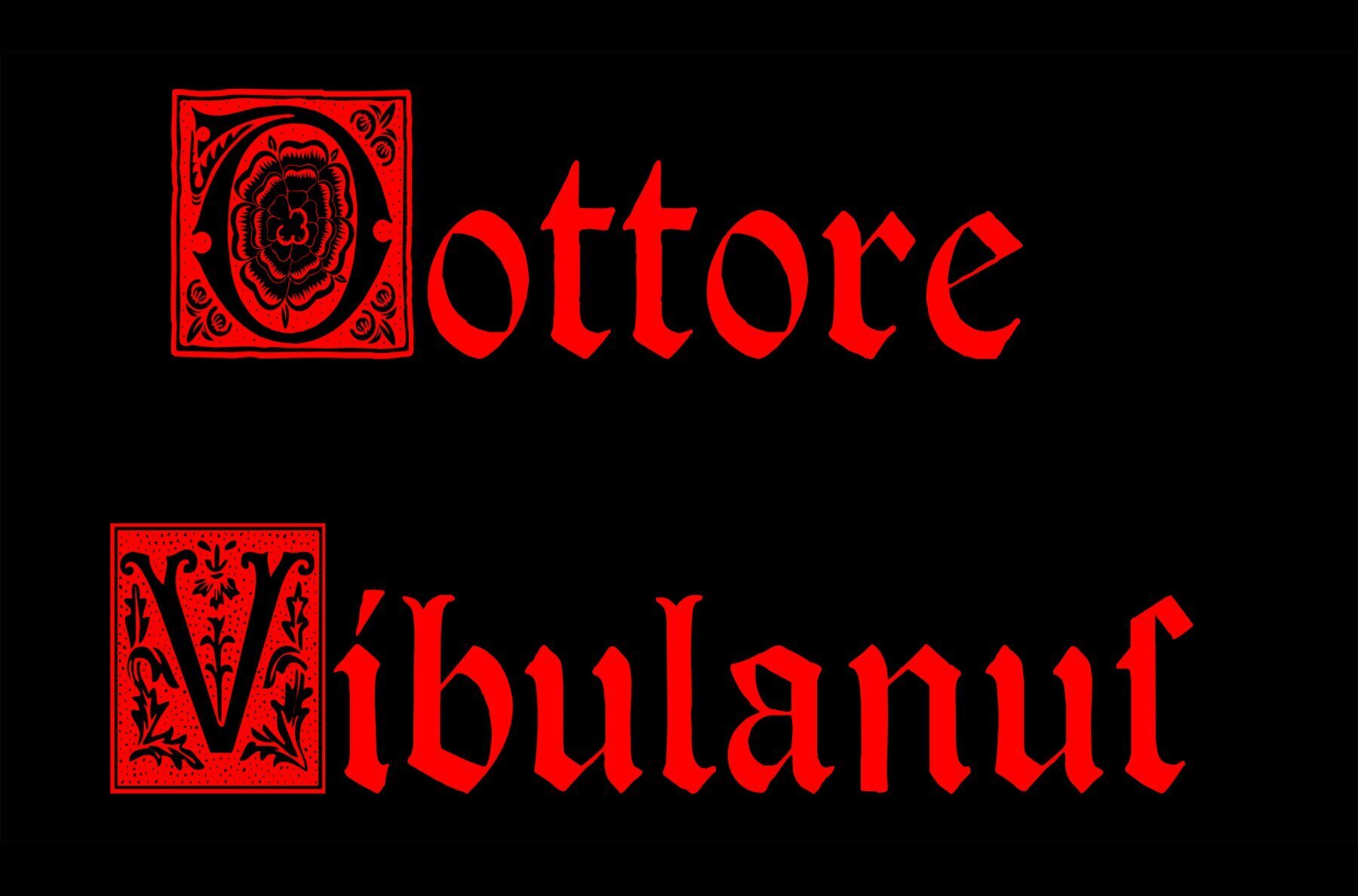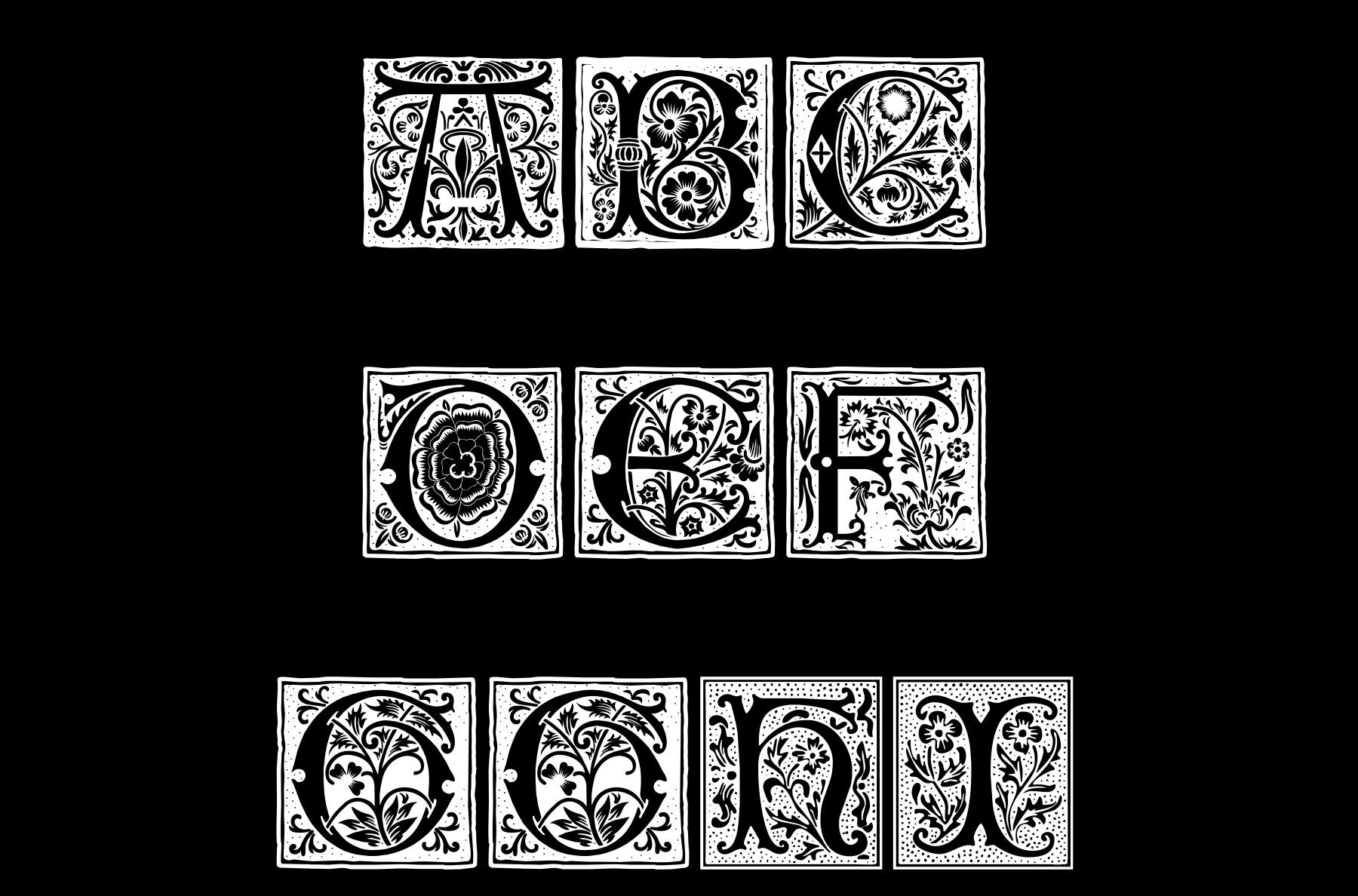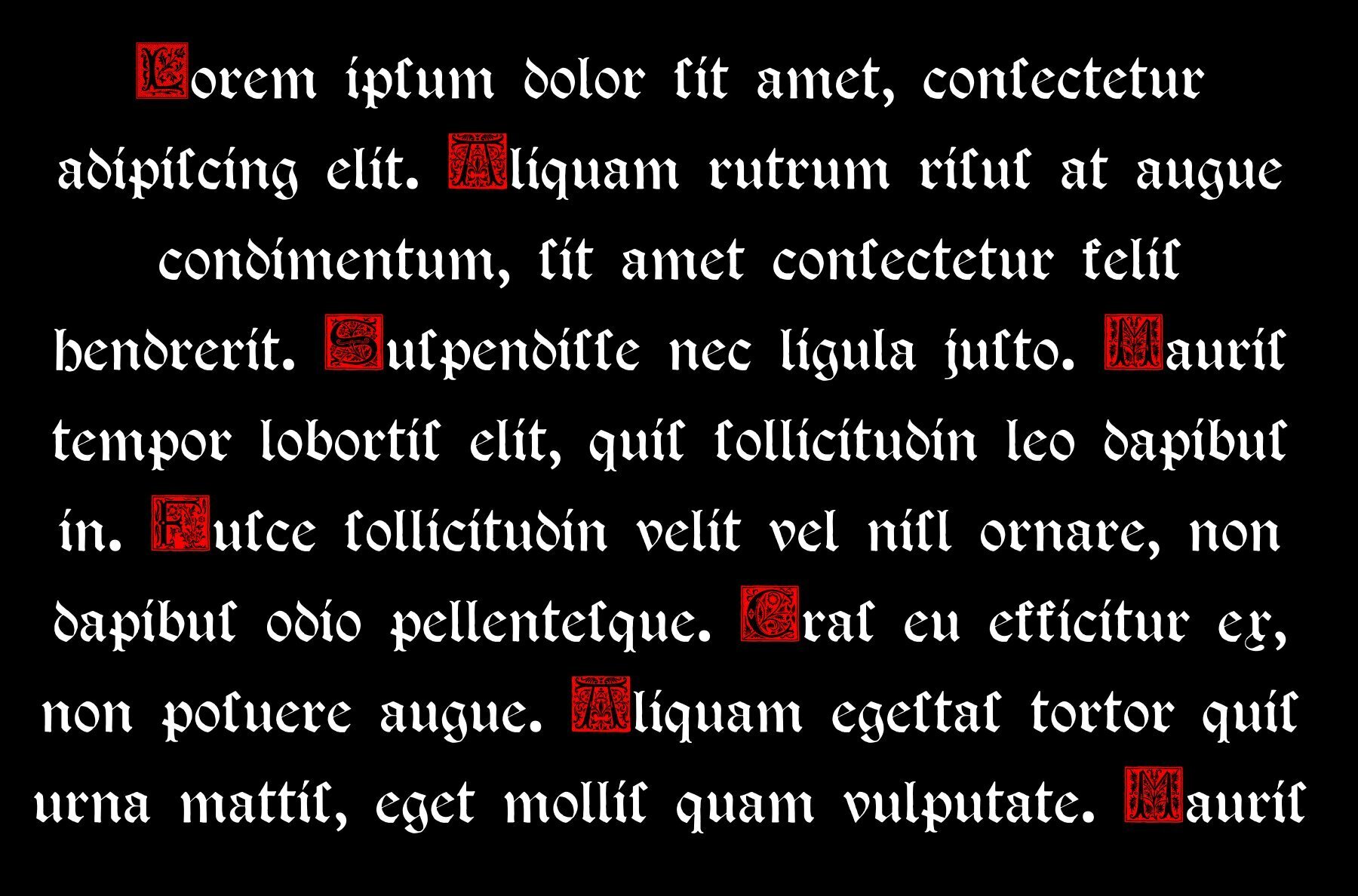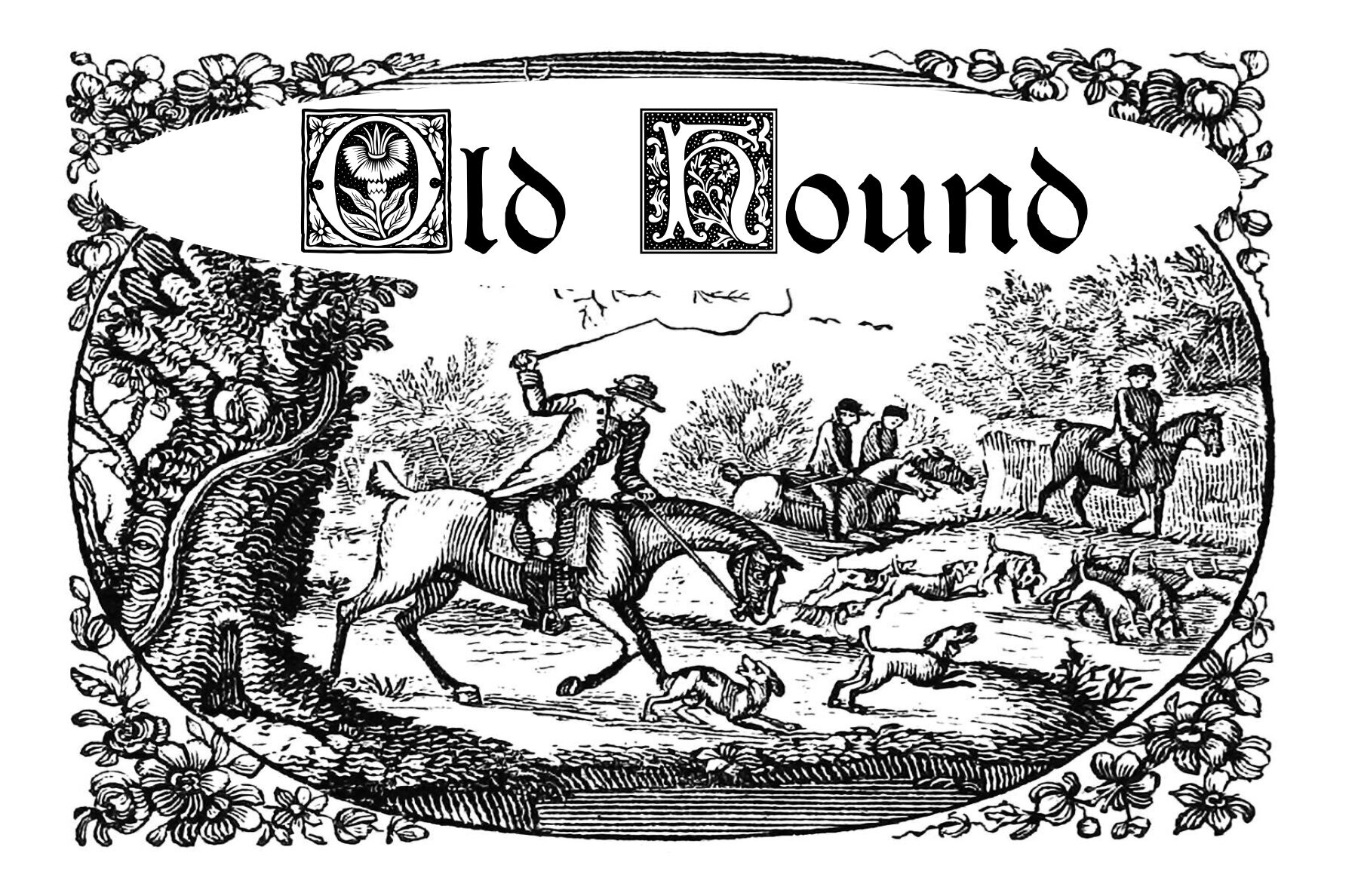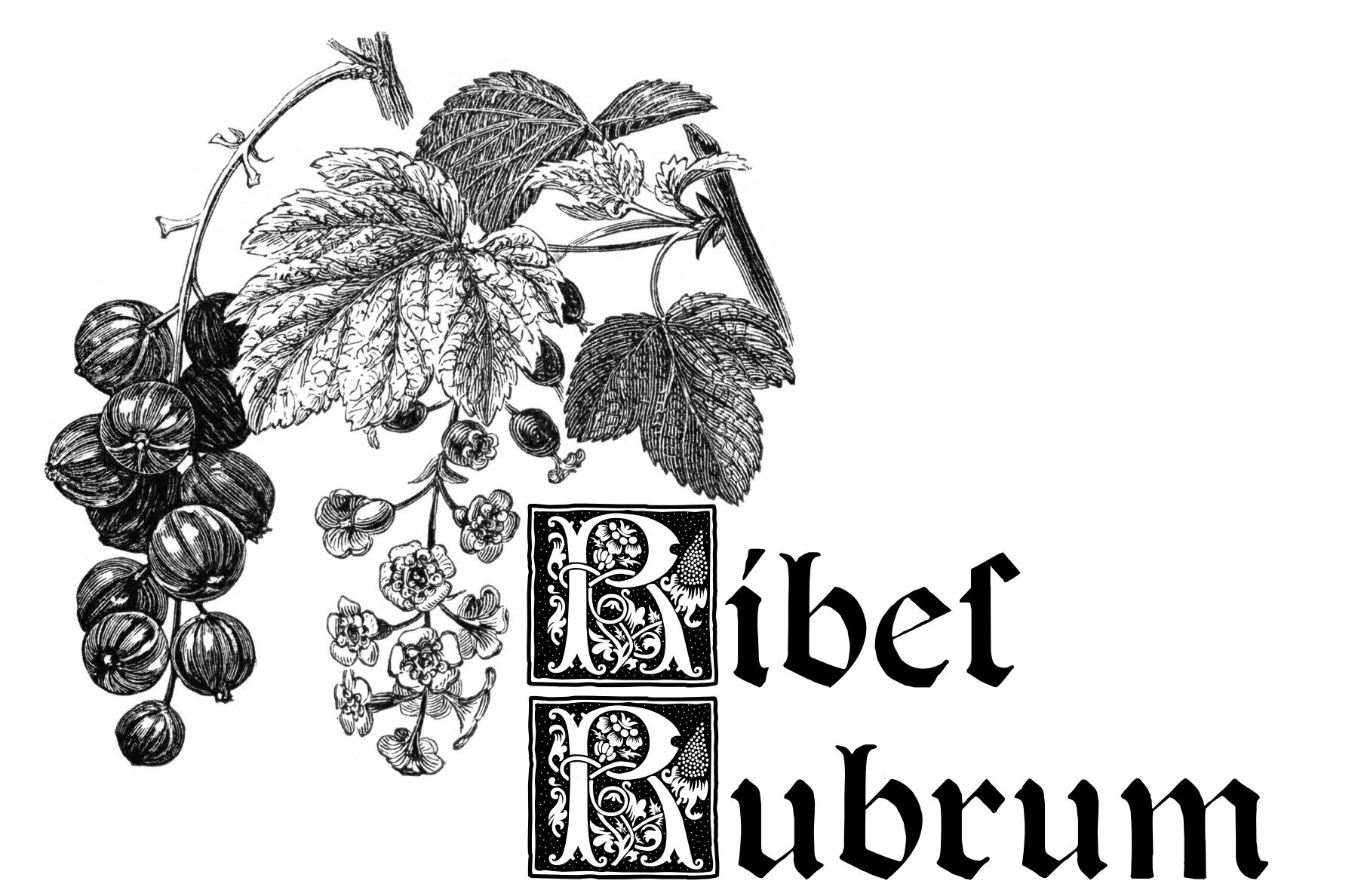
Dottore Vibulanus Font
Dottore Vibulanus Regular
This is a highly decorative and ornamental gothic blackletter typeface reminiscent of medieval manuscripts and ancient scripts. It features elaborate flourishes and detailing within the letters, providing a sense of traditional craftsmanship. This font is well-suited for projects that require a touch of historical elegance and is particularly effective for titles, invitations, or any design work where a statement of luxury and classic sophistication is desired.